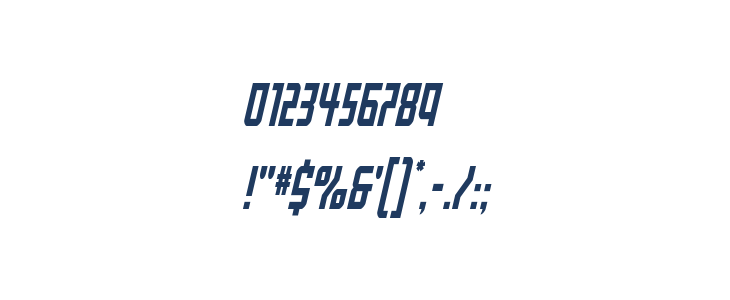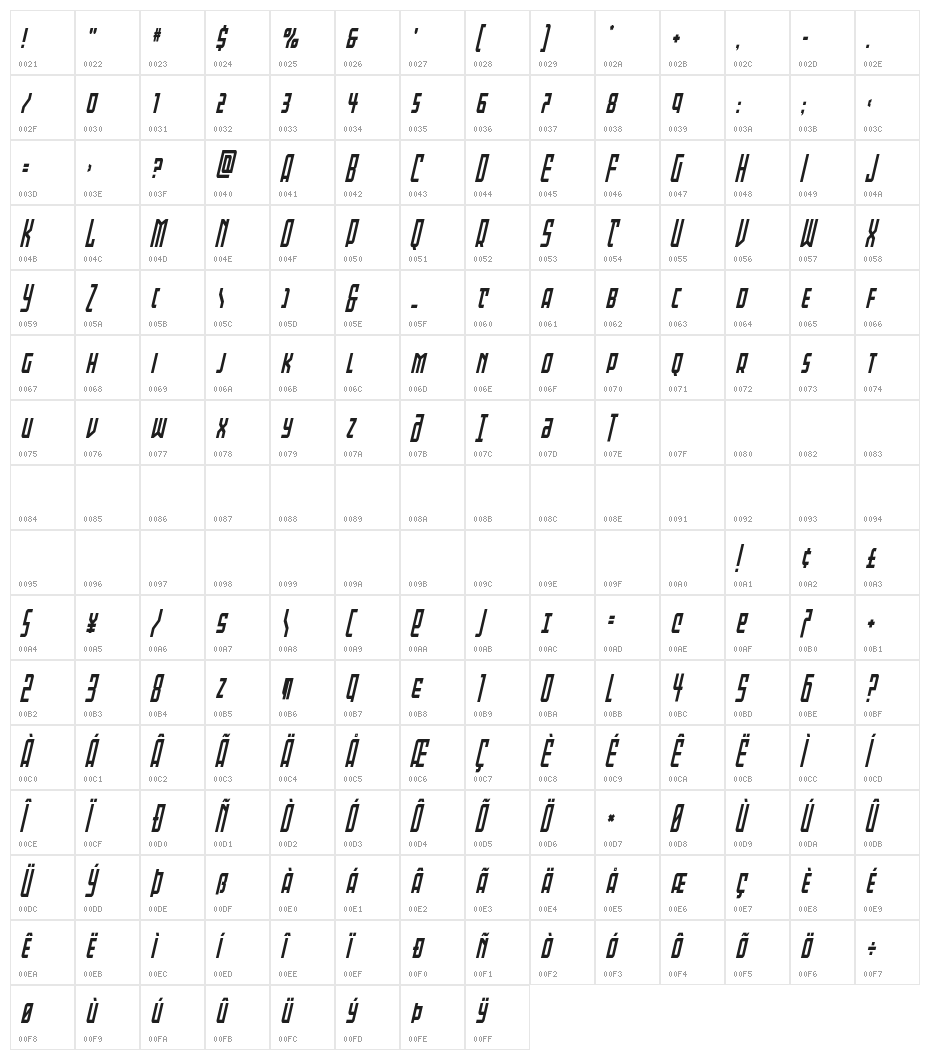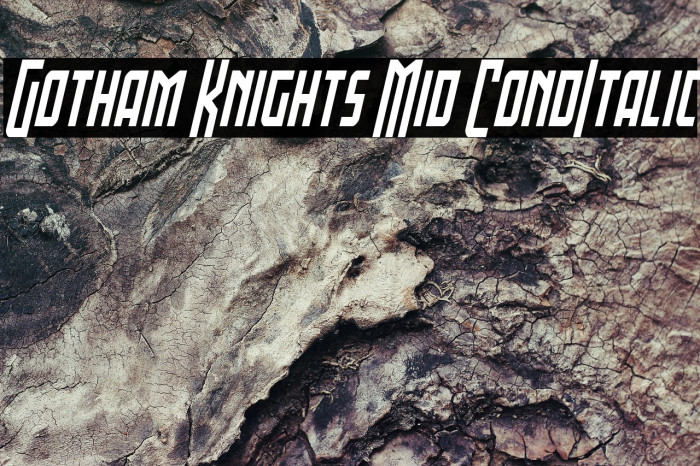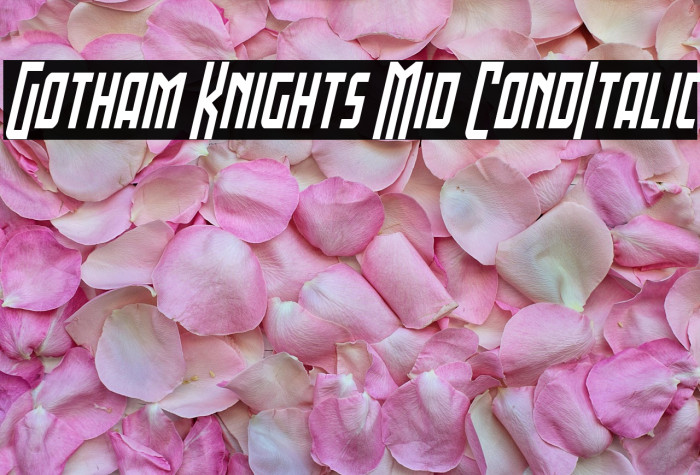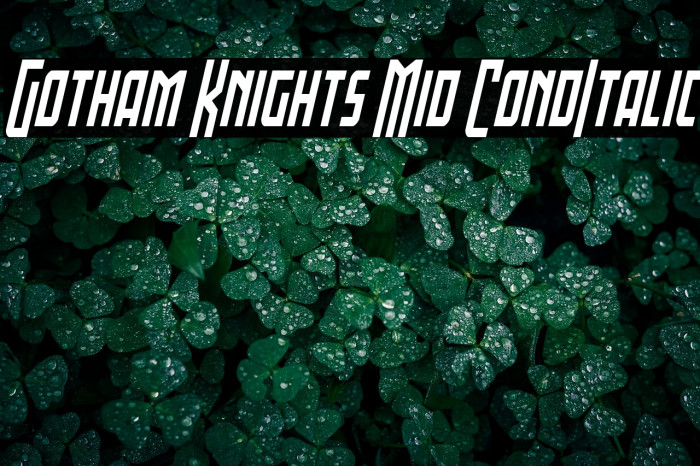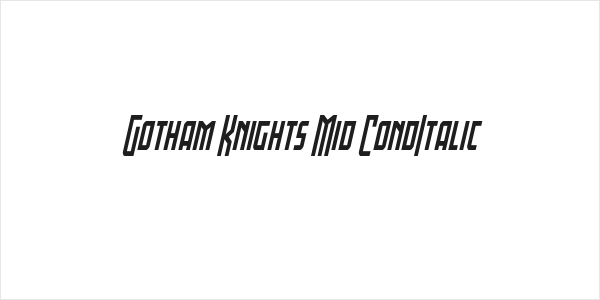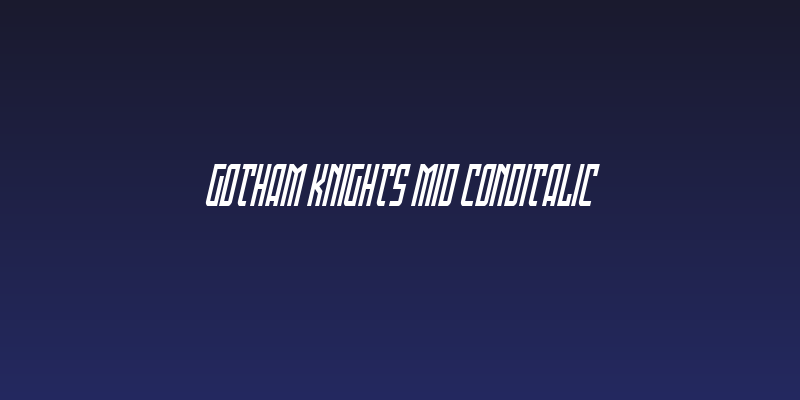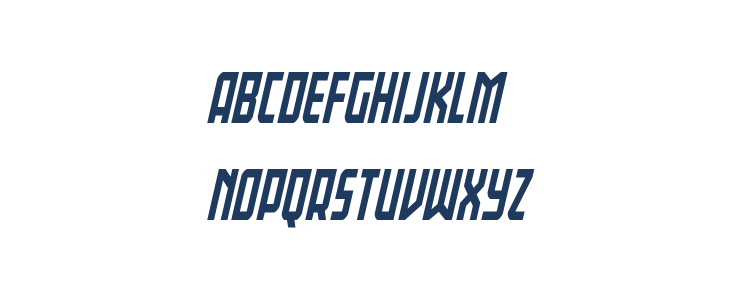
Gotham Knights Mid CondItalic Font
Gotham Knights Mid CondItalic Description
This font features a bold, modern design with a condensed and italicized style. The characters are sharply angled, giving a dynamic and futuristic appearance. The uppercase letters are tall and narrow, while the lowercase letters maintain a consistent height, enhancing readability. The numerals are distinct and align well with the overall aesthetic. Special characters are designed to match the angular and sleek look of the alphabet, making this font suitable for attention-grabbing headlines and branding. The consistent stroke width across all characters provides a uniform and cohesive look.